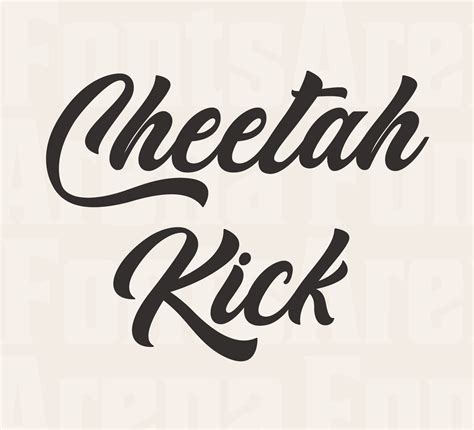
Cheetah Kick Font
Cheetah Kick Font - If you make money from using my fonts, please purchase a. ️ this font has been downloaded 3,000+ times. The cheetah kick is a striking script font. It’s perfect for logos, name tags, advertising, product packaging, clothing, social media, and every.